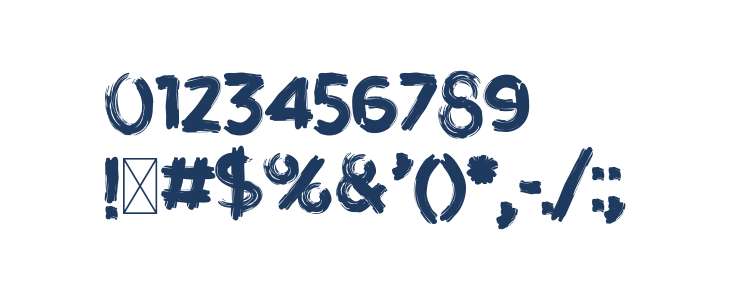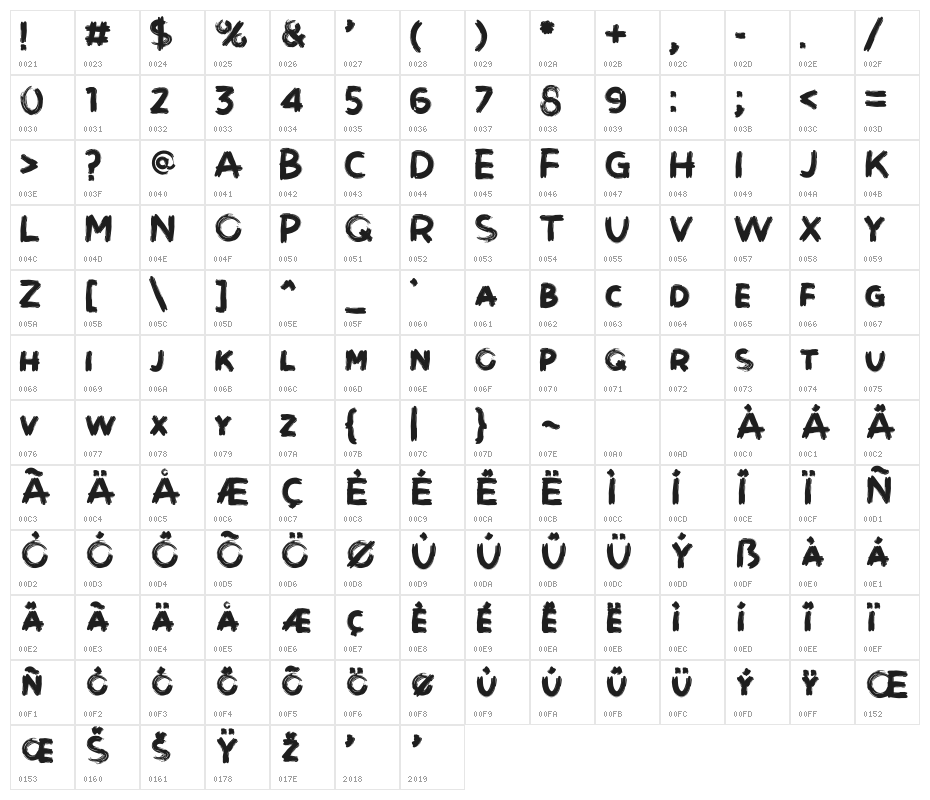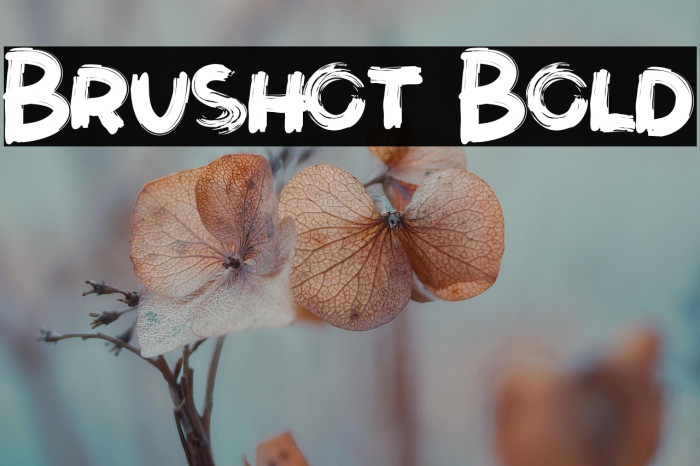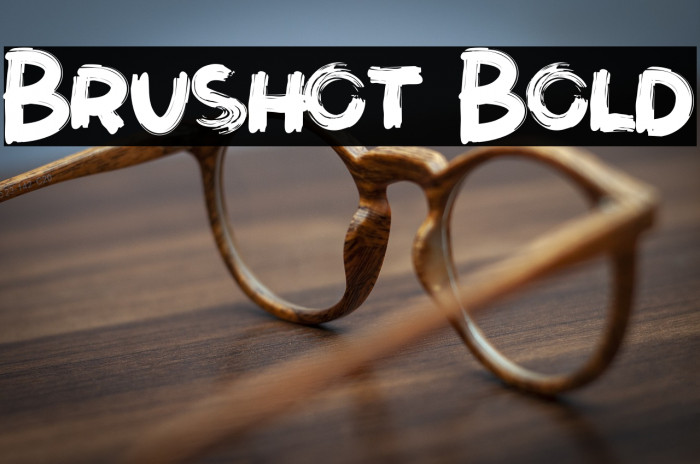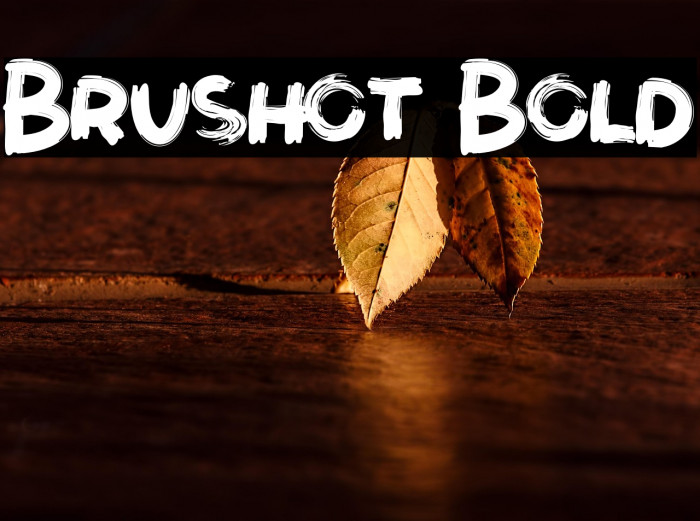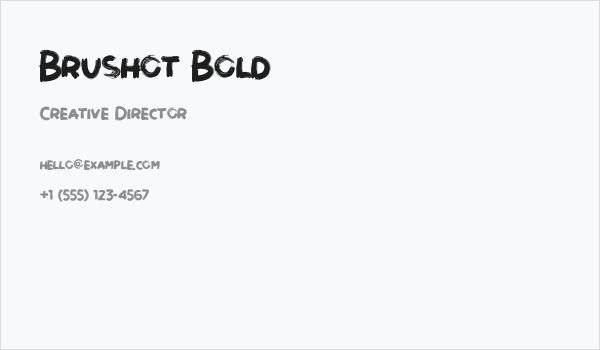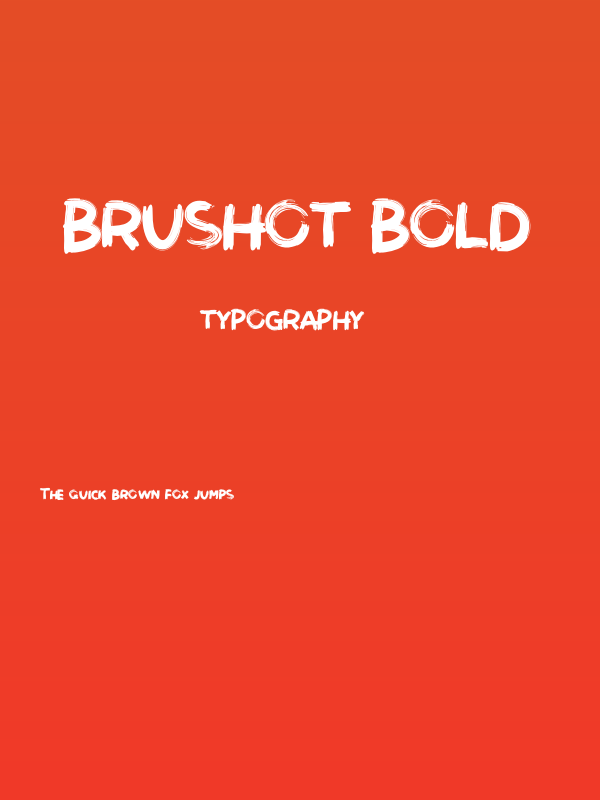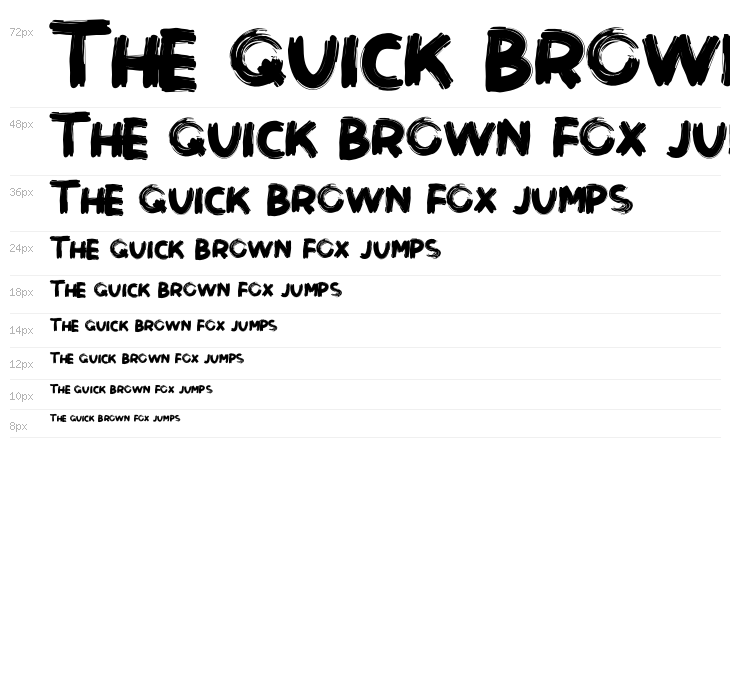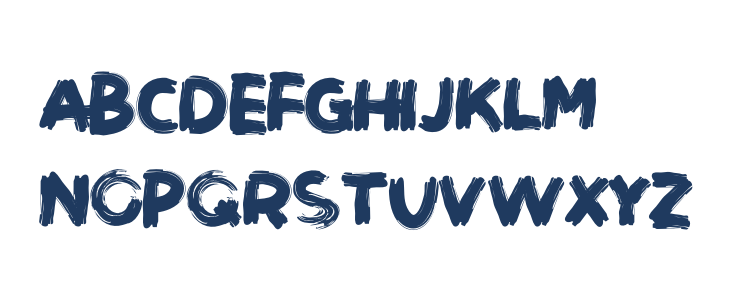
Brushot Bold Font
Brushot Bold Description
This font exhibits a bold, brush-stroke style that conveys a sense of energy and dynamism. The characters are crafted with a textured appearance, resembling hand-painted strokes, which adds a raw and artistic flair. The uppercase and lowercase letters maintain a consistent thickness, while the numbers and special characters follow the same expressive design. This font's unique style makes it stand out, offering a visually striking option for creative projects. The brush-like texture gives it a handcrafted feel, perfect for designs that require a personal touch.
| Overall Style | Artistic, Dynamic |
| Proposed Projects | Ideal for posters, branding, artistic projects, and any design needing a bold, creative touch. |